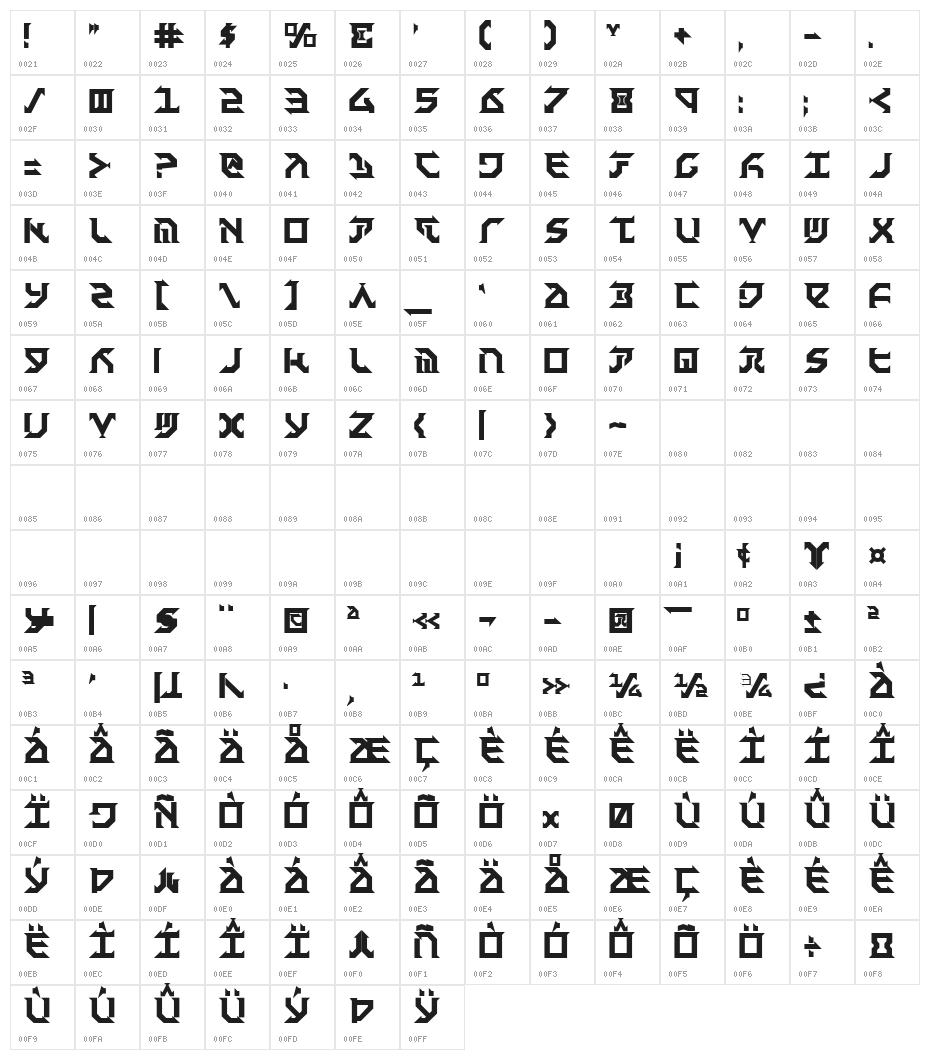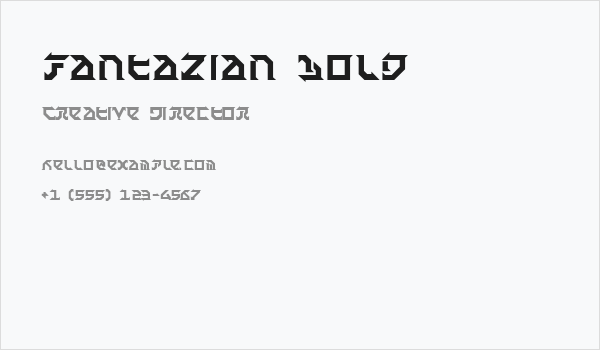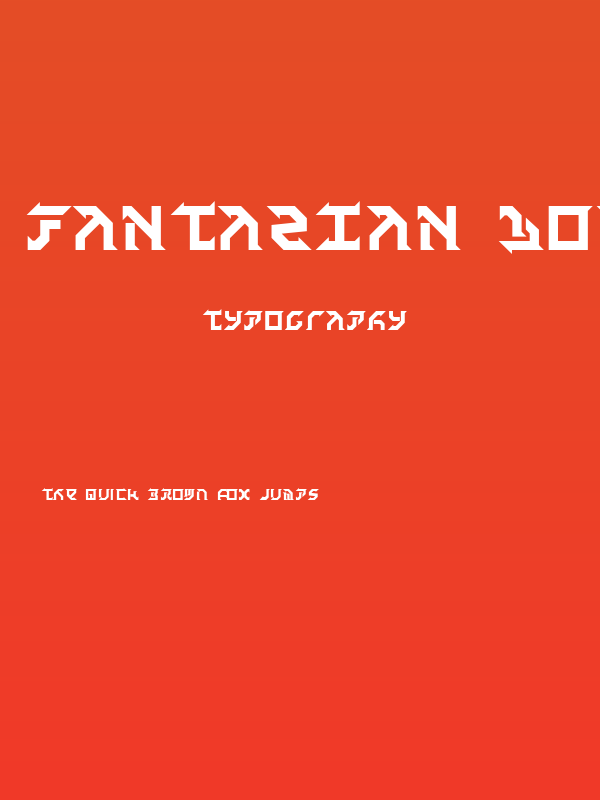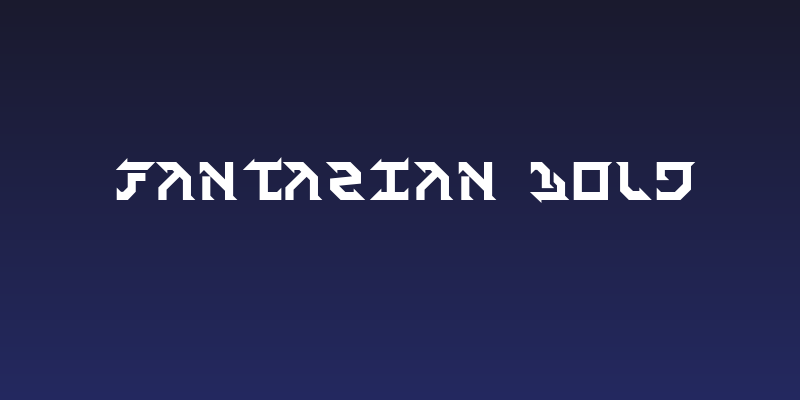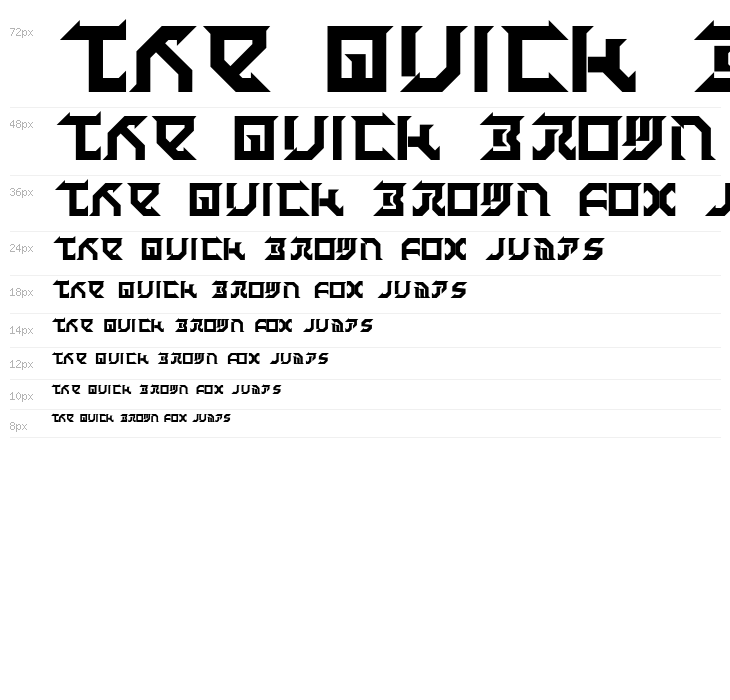
Fantazian Bold Font
Fantazian Bold Description
This font features a bold, geometric design with sharp angles and a futuristic aesthetic. The characters are constructed with thick strokes and pointed edges, creating a dynamic and aggressive look. The uppercase and lowercase letters maintain a consistent style, emphasizing angular forms and symmetry. Numbers and special characters follow the same design principles, ensuring uniformity across all glyphs. The font's unique style makes it suitable for projects that require a modern and edgy appearance.
| Overall Style | Futuristic, Modern |
| Proposed Projects | Ideal for sci-fi themed designs, video game titles, tech branding, and modern posters. |